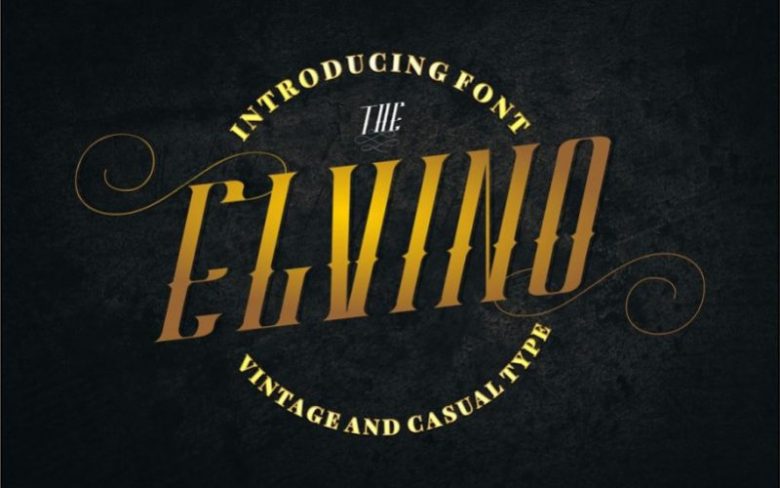
Elvino Typeface
Introducing Elvino Typeface- a Vintage Label Display Typeface. ELVINO inspired from beer, brewery and american vintage style. ELVINO is great for any kind of display purpose from logos, Tshirt, label, apparel, quote, handwritten quotes, product packaging, tittle header, poster, merchandise, social media, labels, branding & greeting cards.